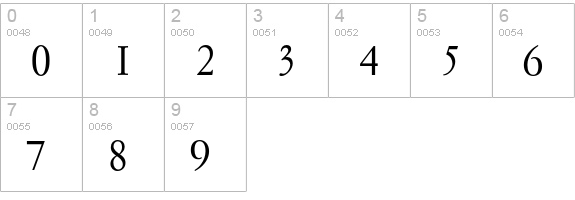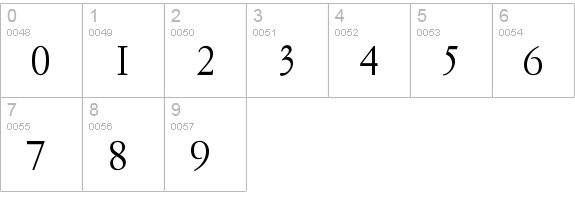
Garemond-Light is a refined, elegant variant in the Garemond typeface family \xE2\x80\x94 well suited to elegant body text, refined sub-headings, and luxury branding.
Garemond-Light font is a beautifully crafted typeface that exudes elegance and sophistication. Its sleek lines and delicate curves make it perfect for a wide range of design projects, from branding to editorial design. The light weight of the font adds a sense of airiness and modernity to any layout. What sets Garemond-Light font apart is not only its stunning design, but also the fact that it is available for free. That's right, you can download this exquisite font without spending a dime. Simply head over to FontsMarket.com to get your hands on this versatile typeface and elevate your projects to the next level. Don't miss out on the opportunity to add Garemond-Light font to your font collection today!